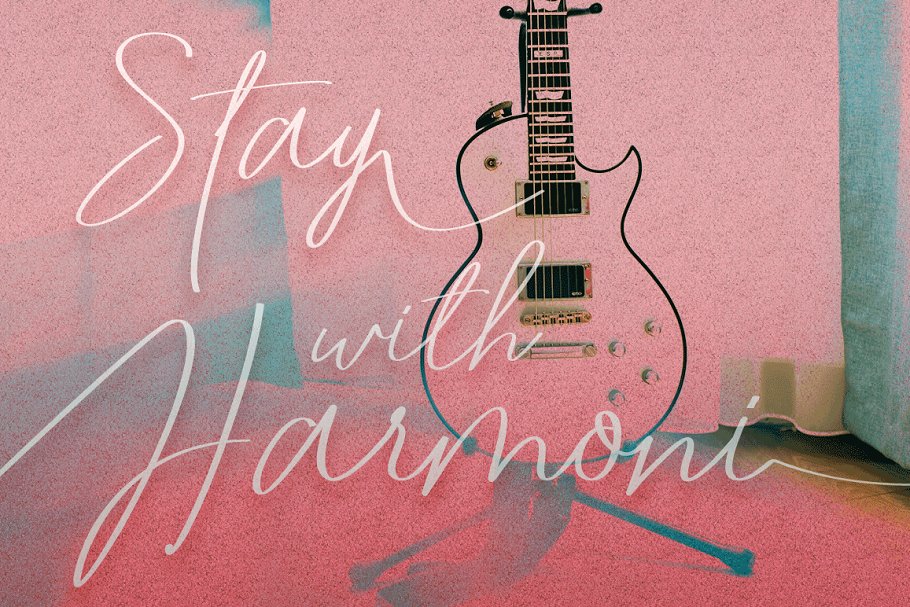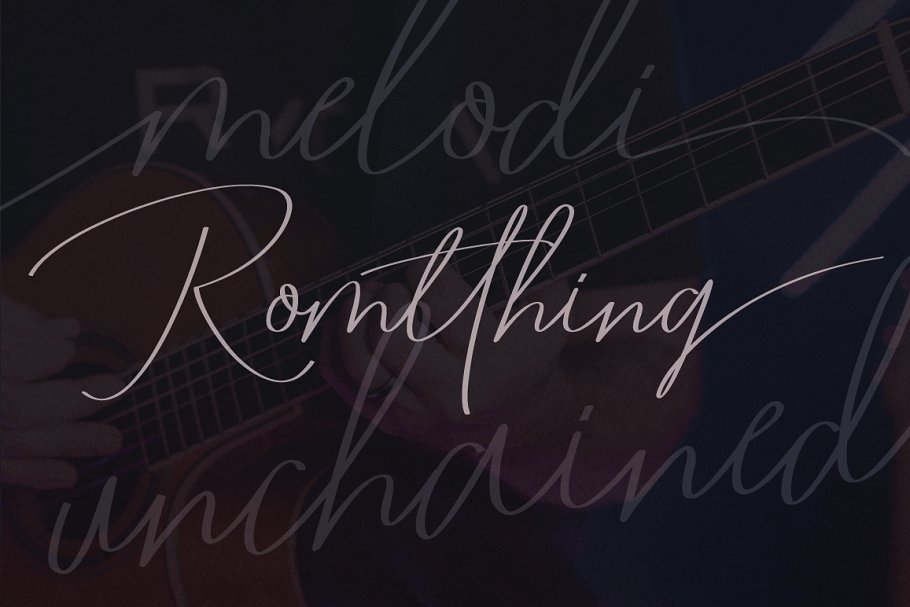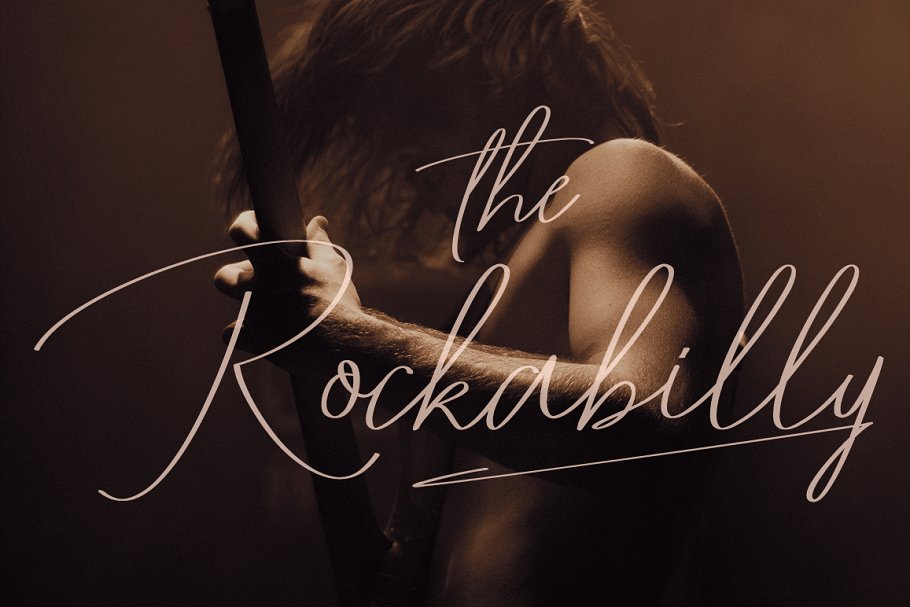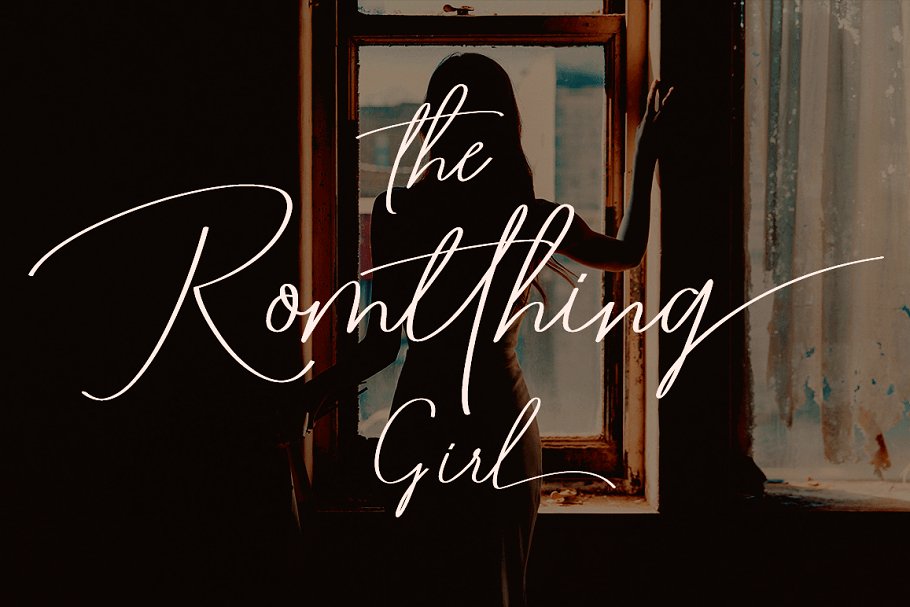
Romtthing Girl Signature Font
This is a classic handwriting font with a modern twist. Add it to your fonts collection right away. Introducing Romtthing Girl Font! It is designed and shared by DoeL. Romtthing Girl is a simple and stylish font, comes with Elegant Variations, opentype features such as stylistic alternates, initial and final form, Romtthing Girl Features 500 glyphs and ligatures. The Romtthing Girl Font is the right choice for photography, signature or signature logo design, quotes, album covers, business cards, and many other design projects. From business cards to photo watermarks, because the Romtthing Girl font is a classy signature with luxury.